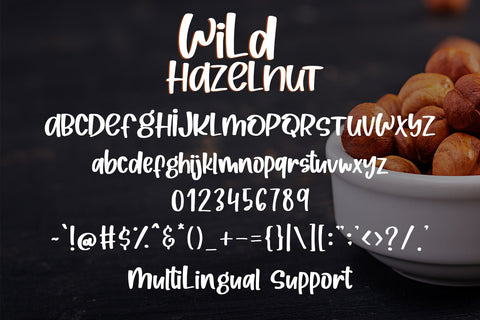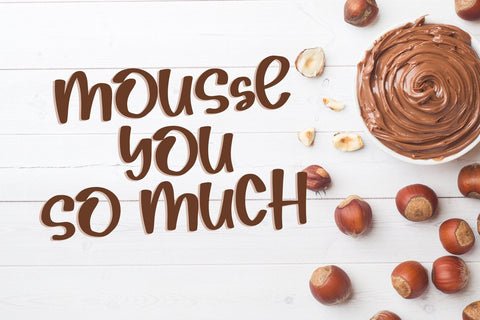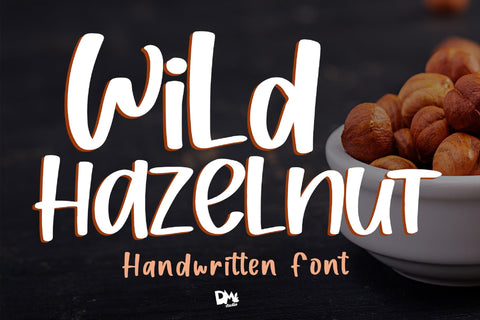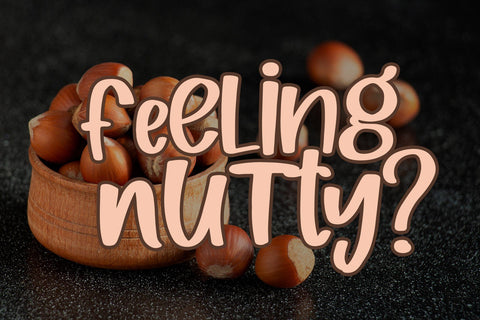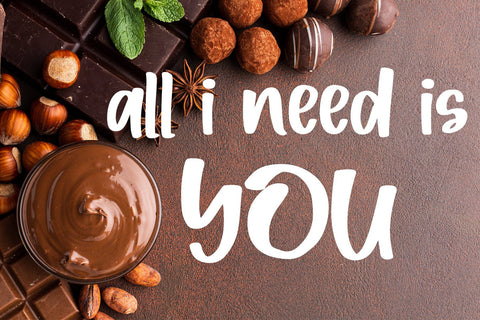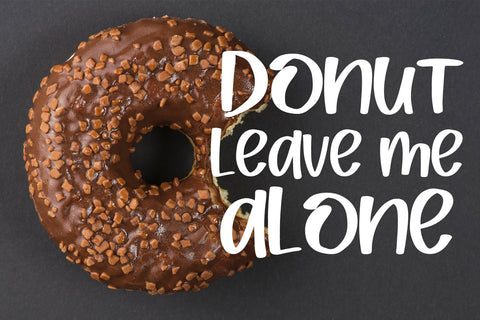
Wild Hazelnut - Handwritten Font
Wild Hazelnut
Sweet, Casual and versatile handwritten font. Great for your stunning crafty design!
- Uppercases
- Lowercases
- Numerics
- Symbols
- Multilingual